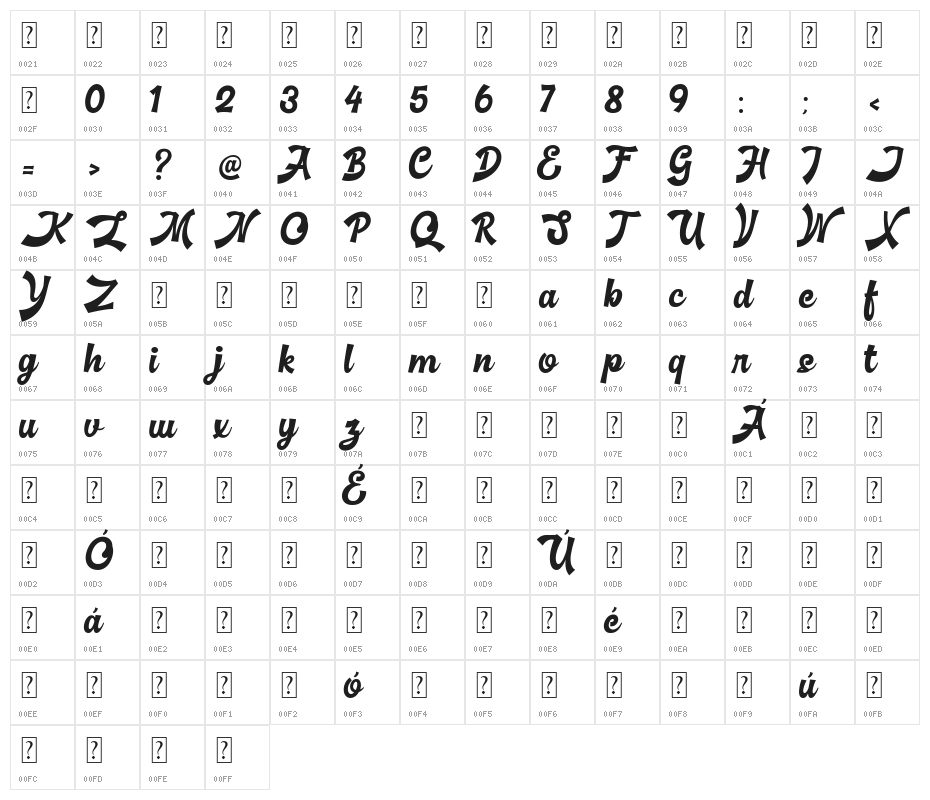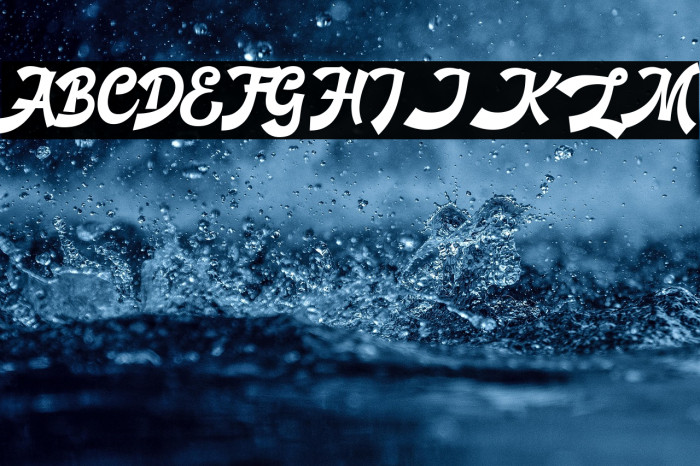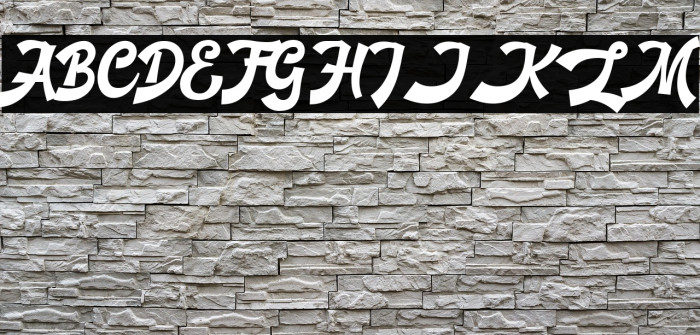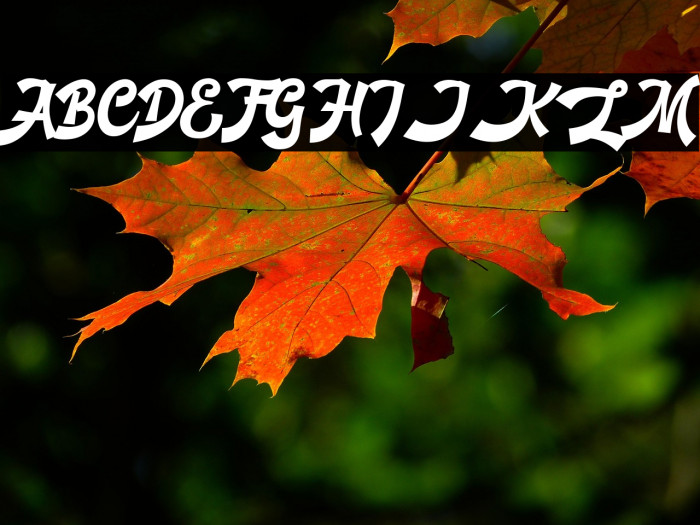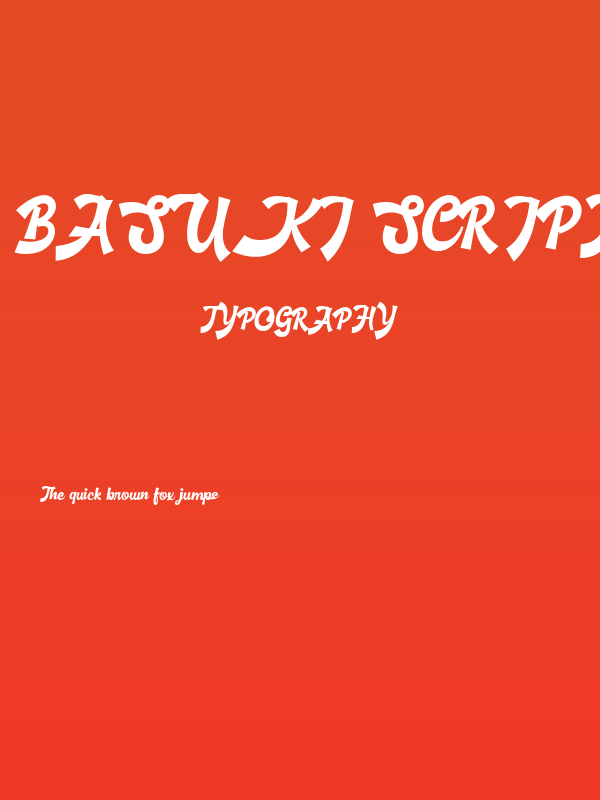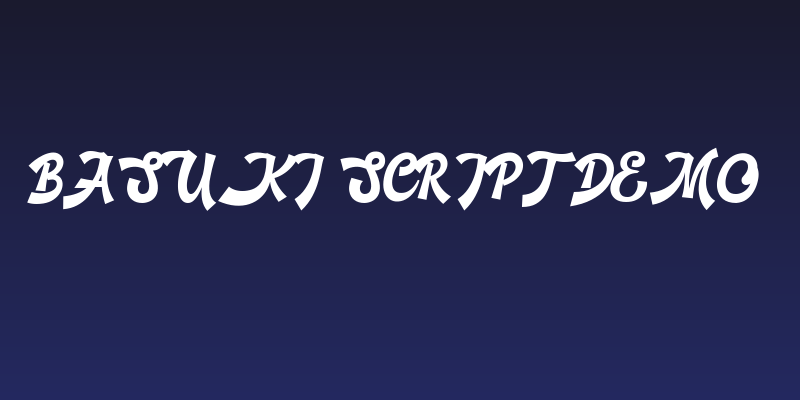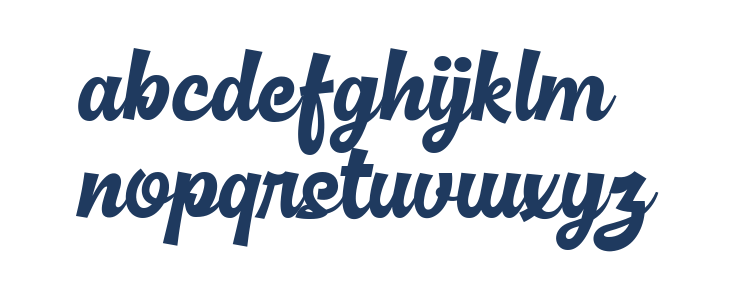
Basuki Script Demo Font
Basuki Script Demo Description
This script font features a bold and dynamic style with a strong presence. The uppercase letters are characterized by sweeping curves and elegant flourishes, giving them a sense of movement and fluidity. The lowercase letters maintain a consistent flow, complementing the uppercase with their rounded forms and smooth connections. The numerals are bold and clear, ensuring readability while maintaining the overall aesthetic. The font's design is both expressive and versatile, suitable for a variety of creative applications.
| Use Case | Logos, Invitations, Signage |
| Proposed Projects | Ideal for branding, invitations, signage, and any project requiring a touch of elegance and flair. |